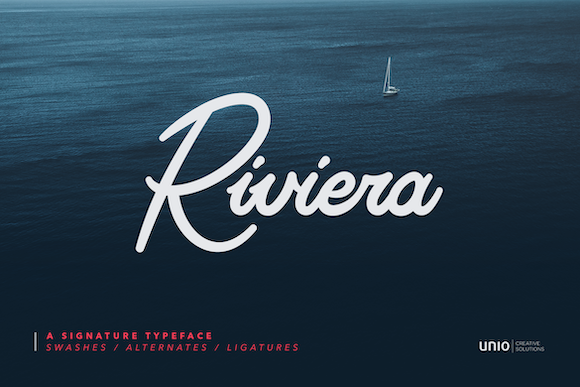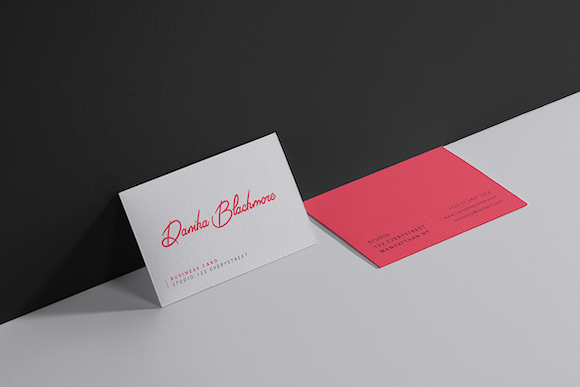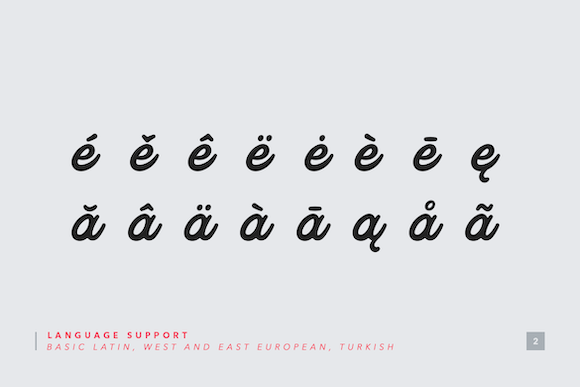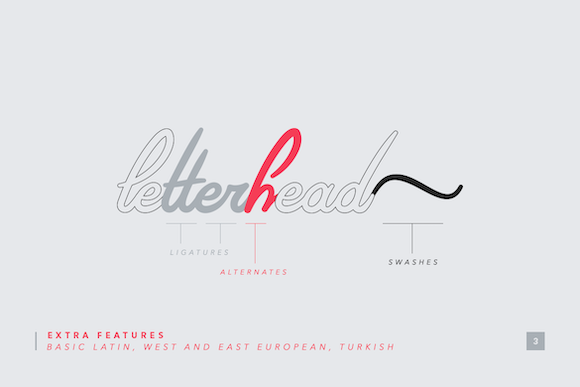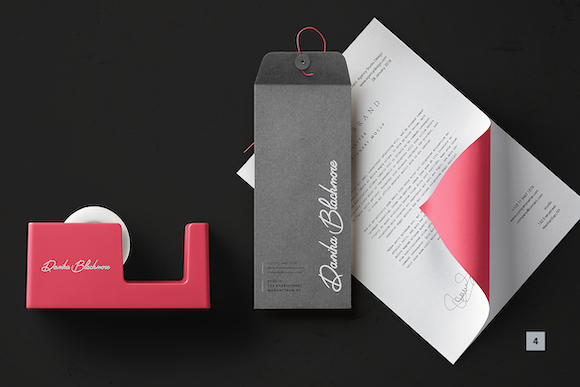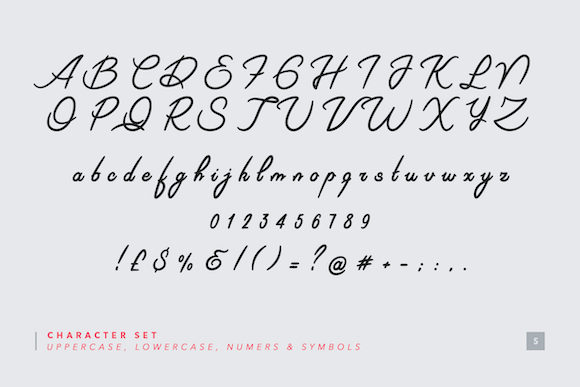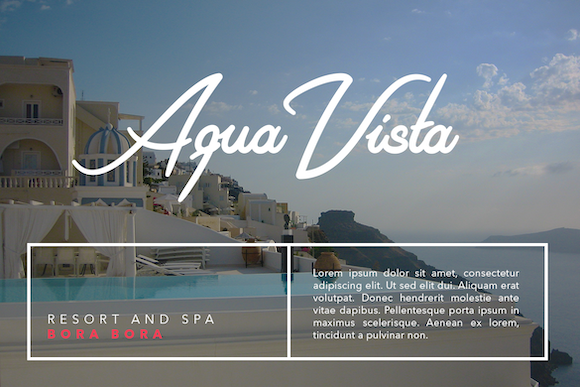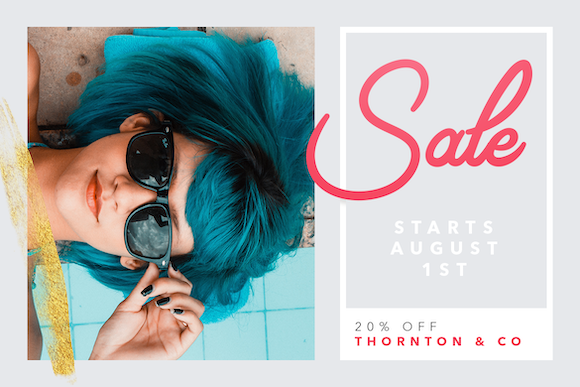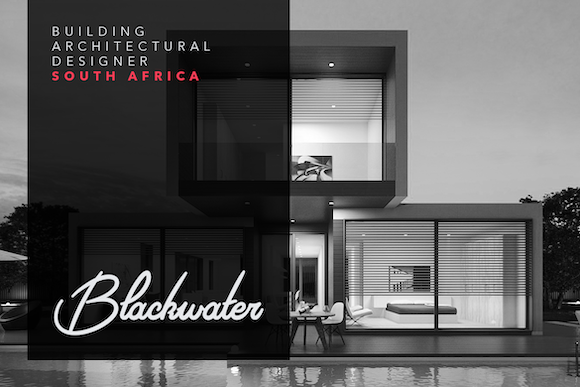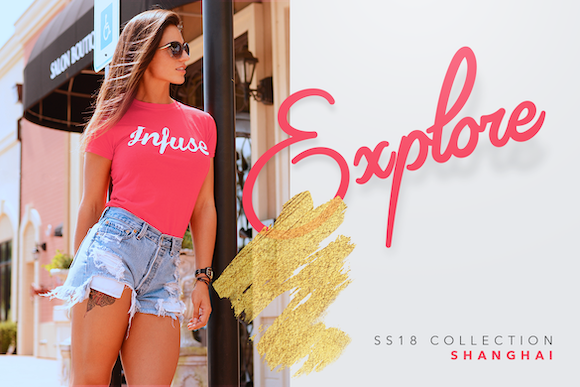
Riviera Font
About Riviera Font
Riviera is an equally authentic and modern handwritten font with a cool vibe. Get inspired by its personal look, and add a lovely feel to any crafts idea!